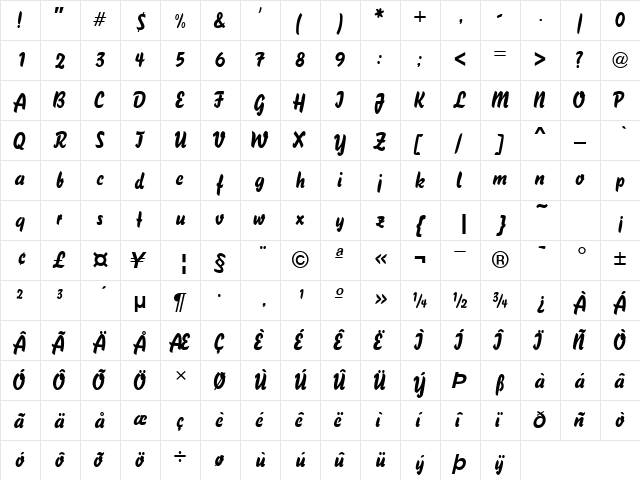
PowWowSSK Regular
Design Context for PowWowSSK Typeface
PowWowSSK is a composed and adaptable typeface that performs quietly and consistently across a wide range of design contexts.